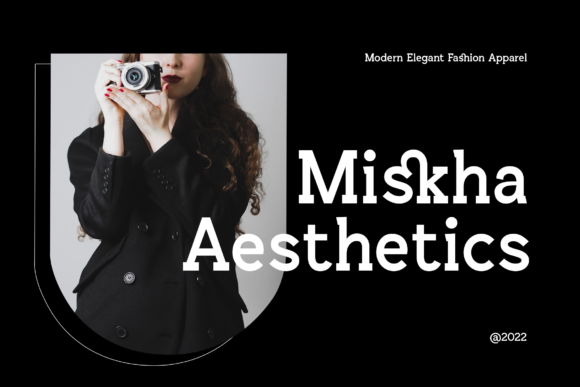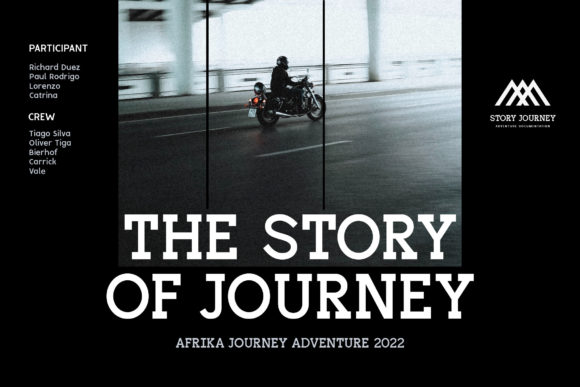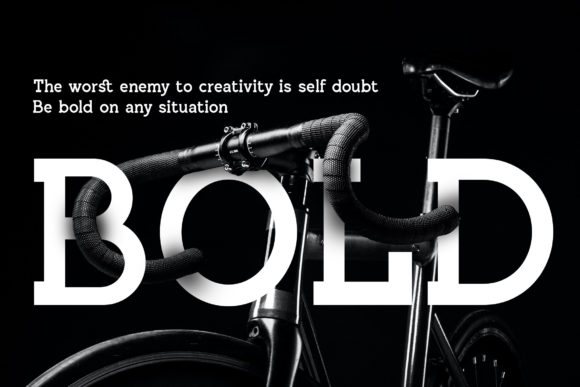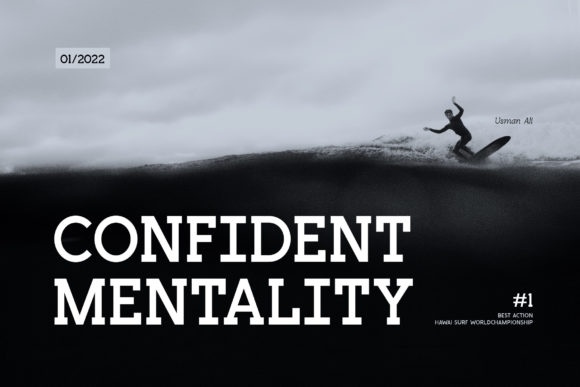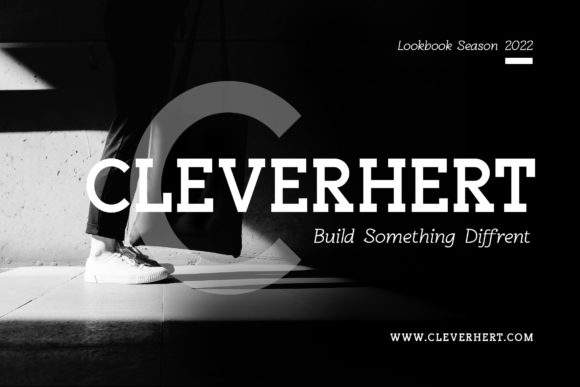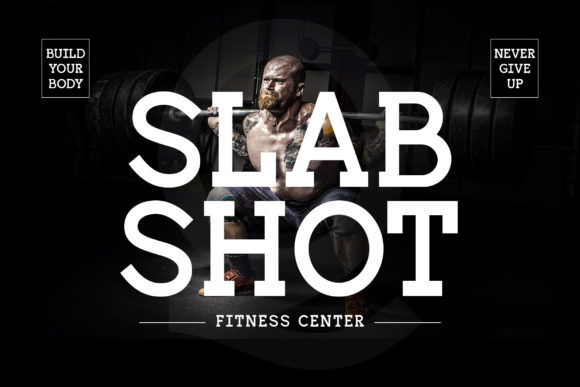
Introduction to Merquin Font
Have you ever been working on a creative project, pouring your heart and soul into it, only to feel like it’s missing that one special something? For designers, this can be a frustrating experience. But what if I told you that the perfect design resource is just a download away? Enter the Merquin Font, a vintage and bold slab serif font that’s about to take your designs to the next level.
With its strong, confident, and dynamic feel, the Merquin Font is the perfect addition to any high-quality design project. Whether you’re working on a logo, a brochure, or even a website, this font is sure to add tons of stylish character and make your design stand out. Plus, with a transparent background, you can easily layer it over your design elements for a seamless look.
Key Features of Merquin Font
- High-quality, professional font design ideal for creative projects and design resources.
- Includes a transparent background, allowing for seamless integration with various design elements.
- Designed to provide crisp and clear text at high resolutions, making it suitable for both print and digital applications.
- Features a unique, modern design aesthetic that can add a touch of sophistication to any creative project.
- Supports a wide range of languages, making it a versatile design resource for global design projects.
Honest Review: Merquin Font
As a designer, I’m always on the lookout for new and exciting fonts to add to my design arsenal. Recently, I stumbled upon the Merquin Font, and I’m excited to share my honest review with you.
- What works well: ✨ I love the elegant and modern design of the Merquin Font. It’s perfect for creative projects that require a touch of sophistication. The font also comes with a transparent background, making it easy to use as a design resource.
- What works well: ✨ The font is available in high quality, which means it’s perfect for printing and digital use. I’ve used it in a brochure design, and the results are stunning.
However, there are a few limitations to the Merquin Font that I want to mention:
- ⚠️ The font is only available in a limited number of styles, which might not be suitable for all design projects. For example, if you need a bold font for a heading, you might be out of luck.
Overall, I’m really impressed with the Merquin Font. While it has its limitations, it’s a high-quality font that’s perfect for creative projects. I’d definitely recommend it to designers who are looking for a free and elegant font to add to their design resource library.
Tips for Getting the Most Out of Merquin Font
For the best results, use the Merquin Font with a transparent background to create a clean and minimalist design. Experiment with different font sizes and styles to add visual interest to your creative project.
The Merquin Font is perfect for a variety of creative projects, including business cards, brochures, and social media graphics. Its high-quality design and transparent background make it an ideal choice for designers looking for a professional and modern look.